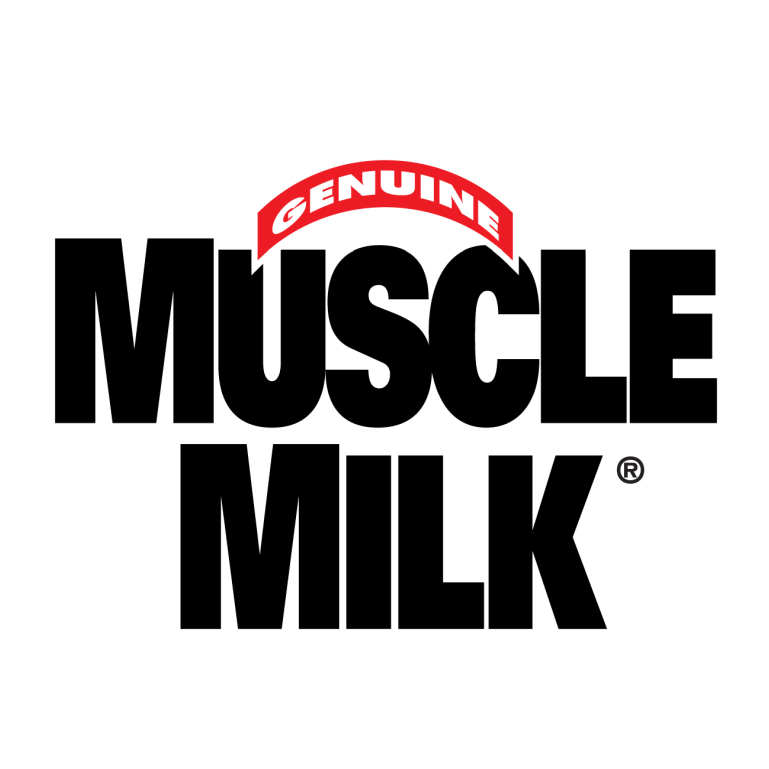
Muscle Milk Font
Fonts in UseMuscle Milk is a brand of protein supplement products marketed towards athletes and fitness enthusiasts. It contains a blend of proteins, vitamins, and minerals designed to support muscle growth and recovery after exercise.
The logo's font appears to be a compressed variant of Univers Extra Black, a neo-grotesque typeface created by Swiss typographer Adrian Frutiger. You can learn more about this font here.